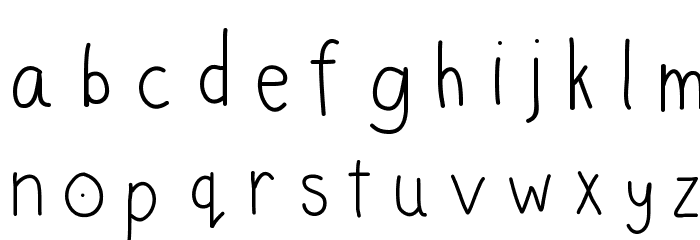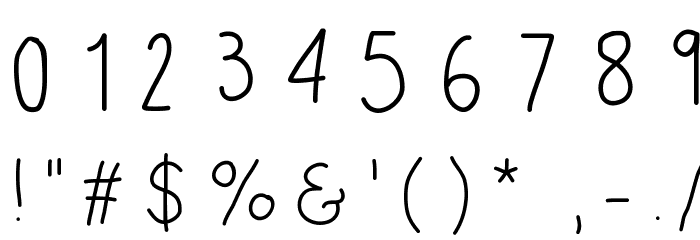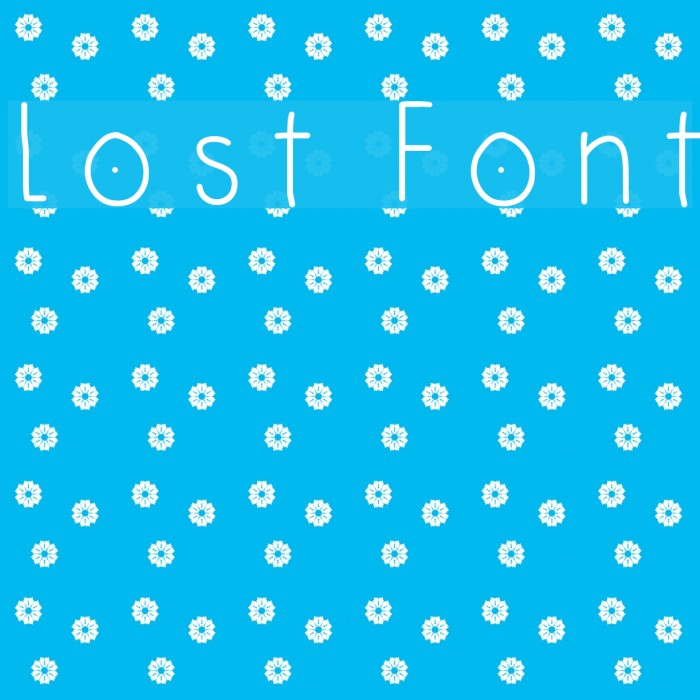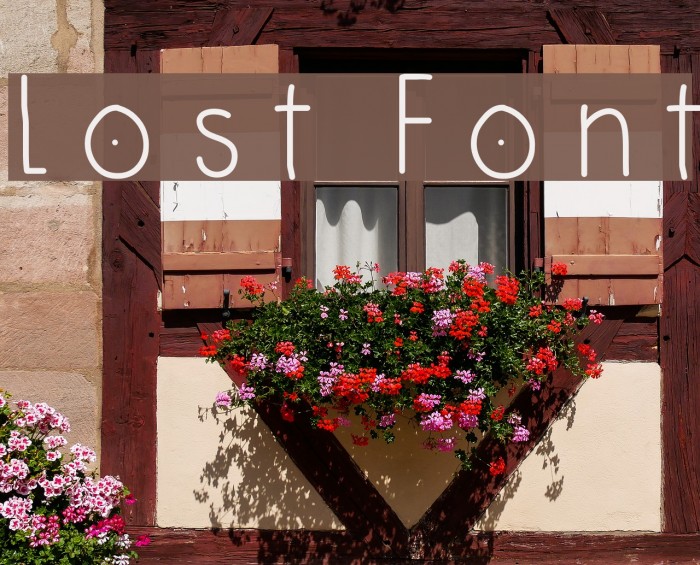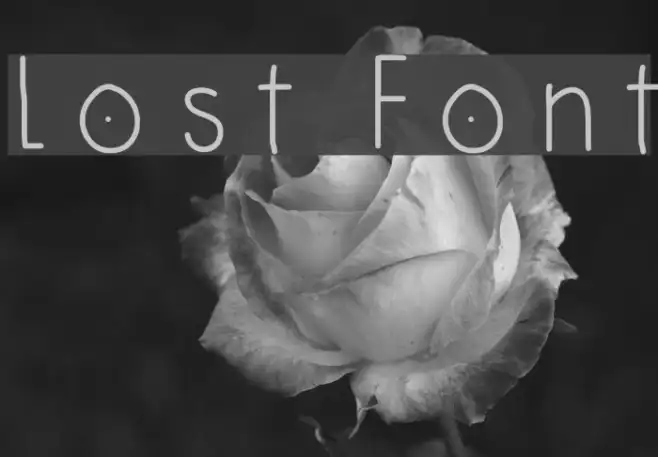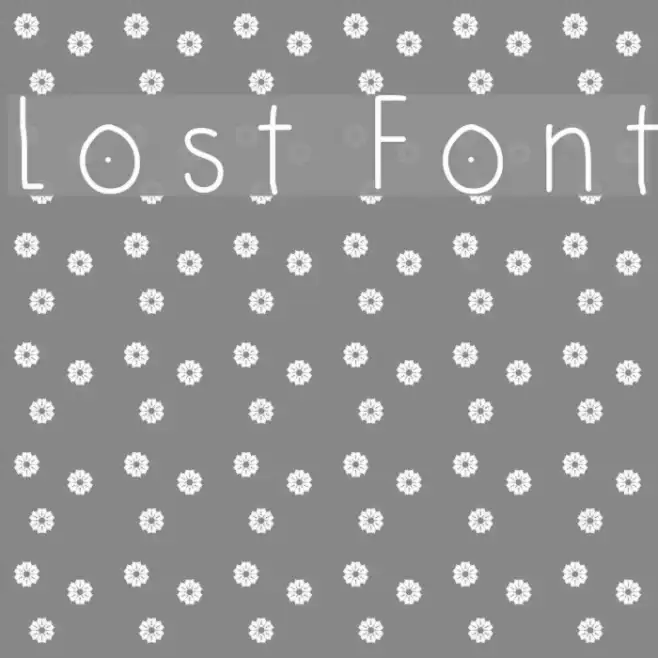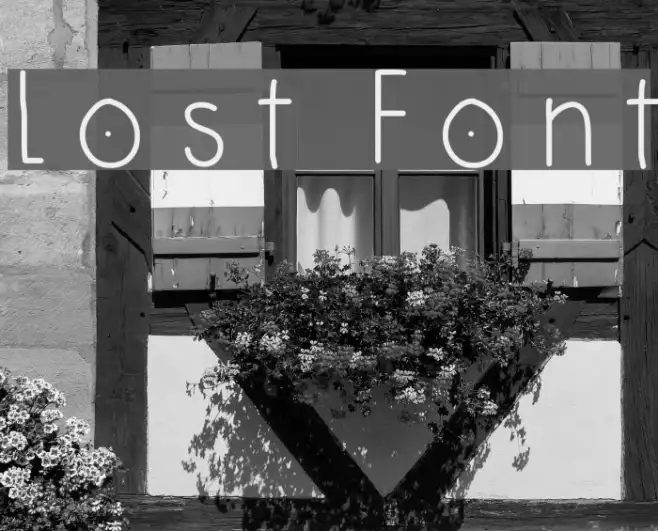
Lost Font
This font features a playful and informal handwritten style, characterized by its irregular and slightly whimsical letterforms. The strokes are consistent in thickness, giving it a uniform appearance despite its casual nature. The uppercase letters are tall and narrow, while the lowercase letters maintain a similar height, creating a cohesive look. The numbers are simple and clear, matching the overall aesthetic. Special characters are included, maintaining the same playful style. This font is ideal for projects that require a personal touch or a friendly, approachable feel.
A playful, handwritten font with consistent stroke thickness and a casual style.
- Proposed Projects: Perfect for greeting cards, children's books, casual invitations, and playful branding.
- Overall Style: Casual, Playful
- Use Case: Headlines, Informal text, Creative projects